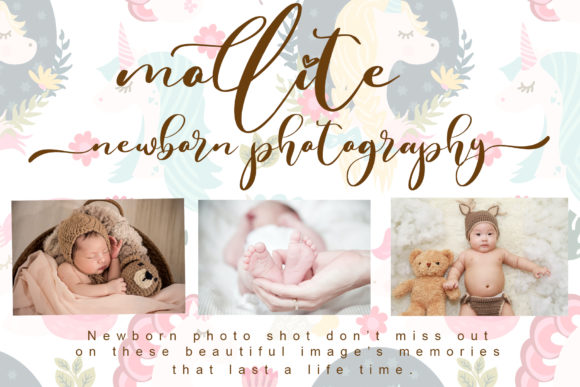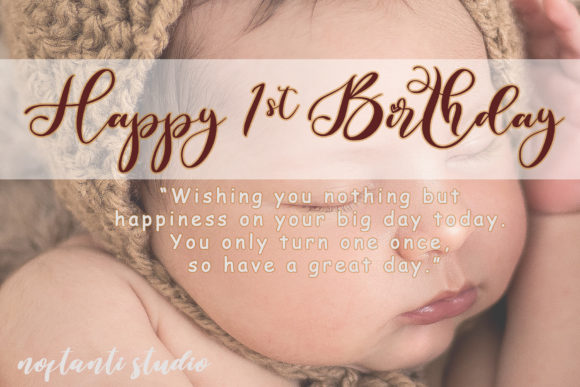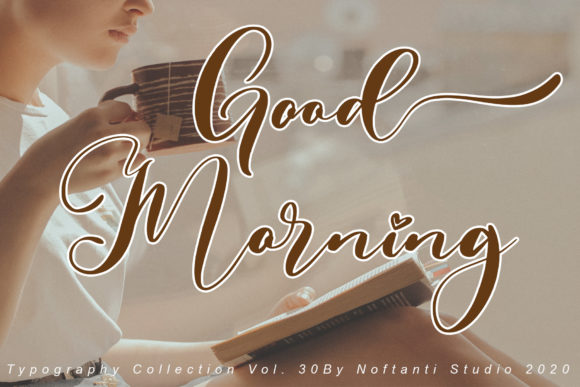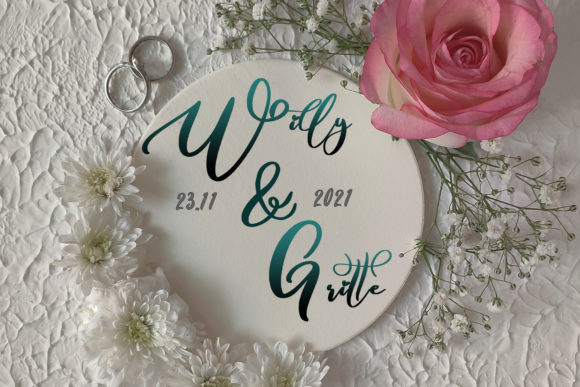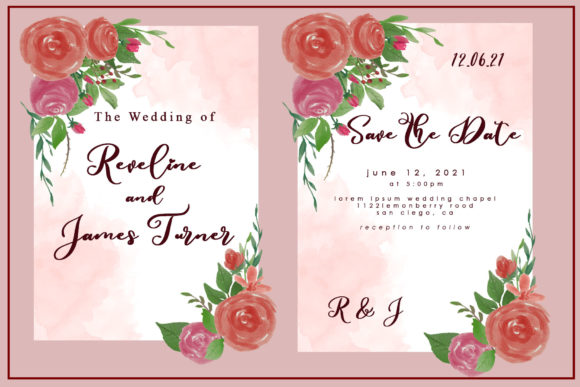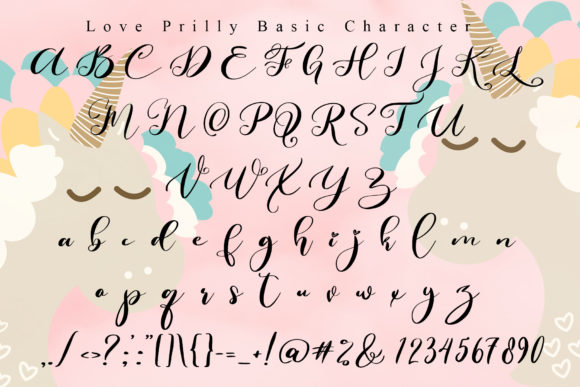
Introduction to Love Prilly Font
Have you ever found yourself scribbling down a creative idea in the middle of the night, only to realize that the perfect font to bring it to life is nowhere to be found? For designers, this is a common frustration that can stall even the most exciting projects. But what if you had a font that not only matched your vision but also elevated it to new heights? Enter the Love Prilly Font, a refined and alluring handwritten font that’s about to become your go-to design resource.
With its beautiful and well-balanced characters, the Love Prilly Font is the perfect addition to any creative project. Whether you’re working on a free download, a logo design, or a digital illustration, this font is sure to add a touch of sophistication and high quality to your work. And with its transparent background and PUA encoding, you’ll have access to all the glyphs and swashes you need to make your design truly shine.
Key Features of Love Prilly Font
- High-quality design resource suitable for various creative projects, including graphics, logos, and typography.
- Available in 5 font styles, each with unique characteristics to add depth and visual interest to your creative project.
- Designed with a playful, handwritten feel, making it perfect for adding a personal touch to your design.
Honest Review: Love Prilly Font
As a designer, I’m always on the lookout for high-quality design resources that can elevate my creative projects. Recently, I came across the Love Prilly Font, which promised to deliver a unique and stylish look. Here’s my honest review.
- Cute and playful design aesthetic, perfect for child-friendly projects or illustrations
- Includes a transparent background, making it easy to use on any design platform
- Limited character set, which may not be suitable for longer text-based projects
- Not ideal for professional or corporate branding due to its playful nature
Overall, I think the Love Prilly Font is a great design resource for designers working on creative projects that require a whimsical touch. While it has some limitations, its unique style and free download make it a valuable addition to any design library.
Tips for Getting the Most Out of Love Prilly Font
Experiment with different font sizes and colors to create a visually appealing design. Use the Love Prilly Font in combination with other design resources, such as graphics and shapes, to add depth and interest to your creative project.
The Love Prilly Font is ideal for creating invitations, social media graphics, and digital signage. Its high-quality design and transparent background make it a versatile design resource for various creative projects.
Q: What is the recommended resolution for using the Love Prilly Font in high-quality design projects?
For optimal results, we recommend using the Love Prilly Font at a resolution of 300 DPI or higher. This ensures that the font renders smoothly and maintains its high-quality appearance, even in large-scale designs or print materials.